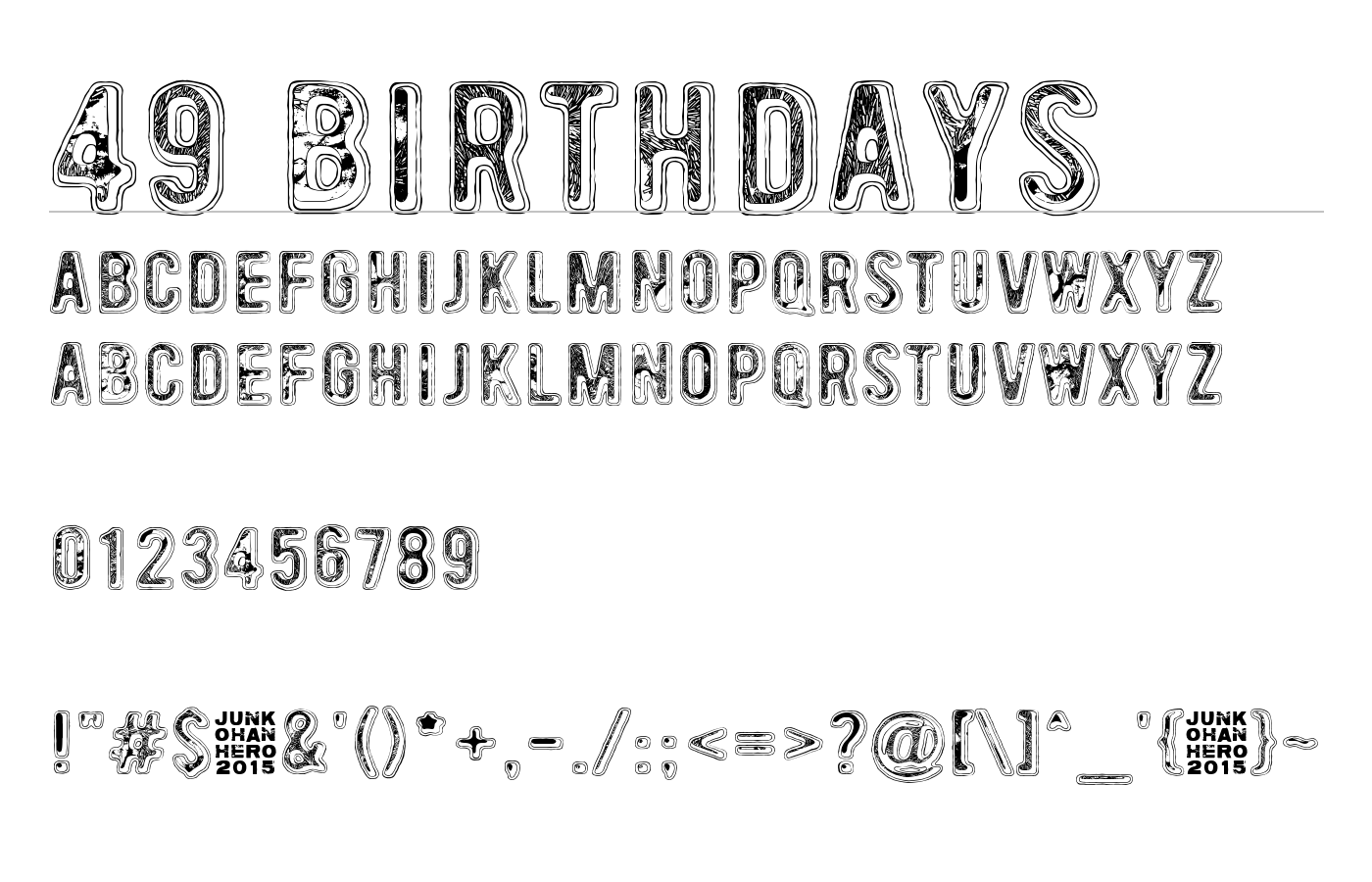
49 Birthdays is a playful and artistic sans serif font that features bold, rounded letterforms with a textured, hand-drawn appearance. Its tall, narrow characters and lively irregularities give it a fun, casual vibe perfect for creative projects, logos, and posters that want to capture a whimsical, handcrafted feel. This font shines in display usage where its unique personality can stand out and add charm to branding or editorial designs.
49 birthdays Font
About 49 birthdays Font